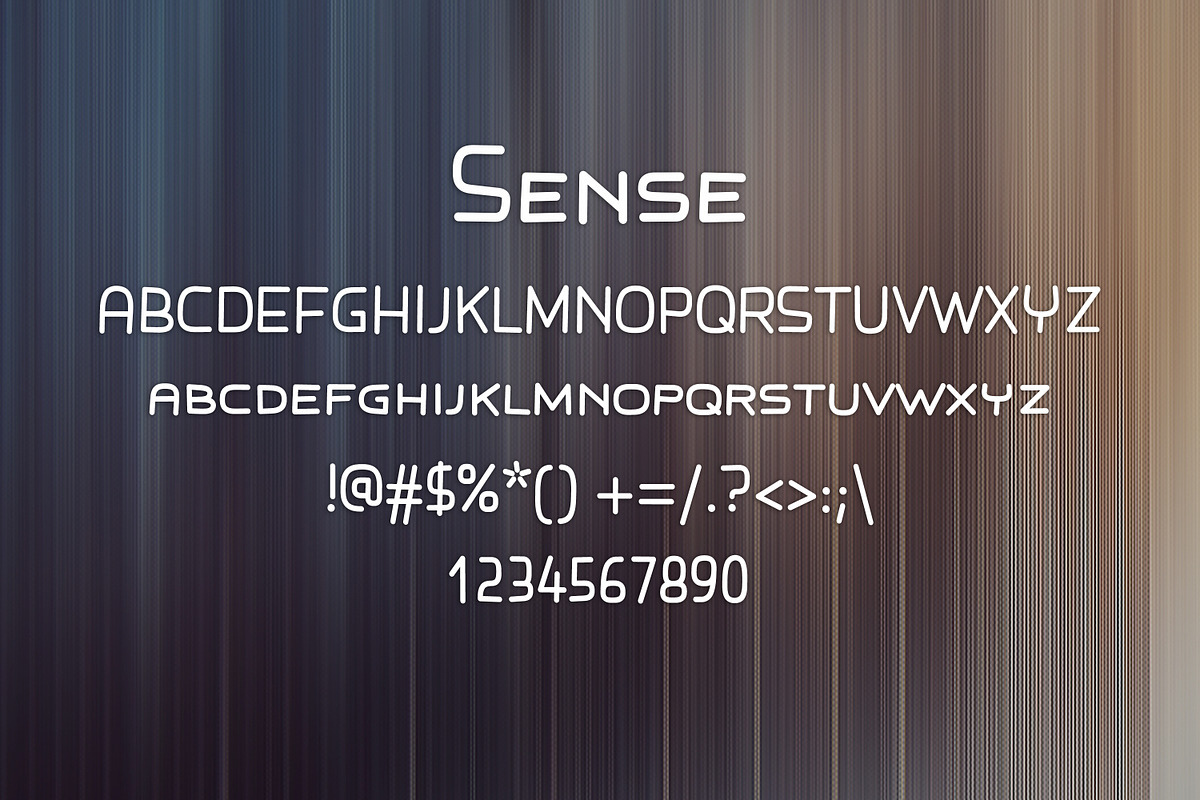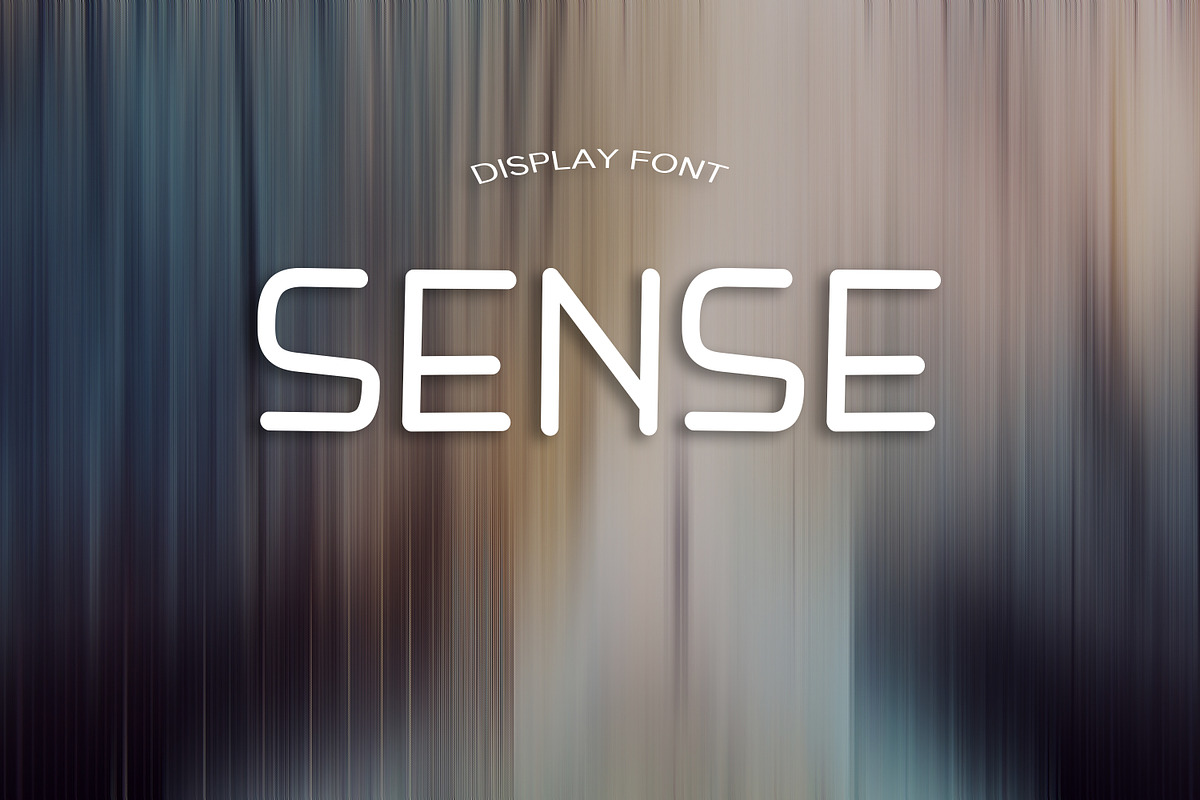
SENSE font
- Sense regular
Why SENSE font is worth a look
SENSE font by DmDesignsStoreArt fits naturally into Branding, posters, packaging, typography.